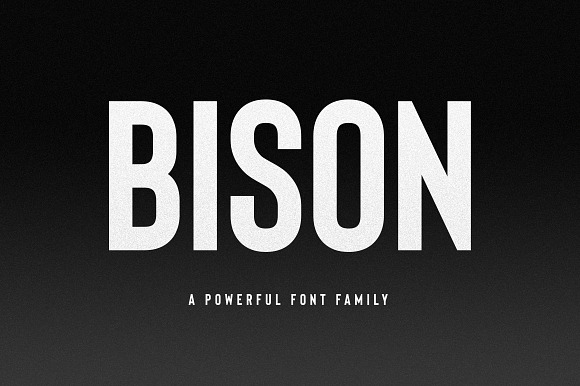
2020 is going to be split right down the middle when it comes to font trends.
Most popular sans serif fonts 2020. As we start to review another year at creative boom weve done a little research to uncover the top 20 typefaces that are proving popular with graphic designers and those we think will be a big hit in 2020. Top 10 fonts that i think will be popular in 2020. From sans serif and slab to serif and display weve thrown in some existing well known fonts as well as brand new contenders all. A continuously updated collection of the 10 most popular humanist sans serif web fonts based on font usage data from typewolf between 2013 and 2020.
For example the version of gill sans on adobe fonts is known as gill sans novai do my best to keep this collection up to date but the availability of certain fonts may change on the service at any time. Based on font usage data on typewolf as well as site submissions designers have been sending me lately these are the 10 fonts that i predict will be hot in 2020. One one side well see the modern sans serif fonts that have dominated the digital space continue to flourish and on the other colorful and expressive character fonts will become more popular with brands and designers alike. This easy to read font is widely used when typing various documents or articles.
Serif fonts with a tiny piece of a nuisance could be perfect for logos print design pairings magazines headlines and even body texts. We analyzed the 40 most popular fonts we offer through our platform honing in on a few major font typesscript decorative headlineas well as the use of serif vs. A continuously updated collection of the 10 most popular sans serif web fonts based on font usage data from typewolf between 2013 and 2020. Some of the font names shown here might be slightly different than the name used on adobe fonts.
We have made a list of best serif fonts that will help you redesign your text or material. One has to choose that font that fits hisher brand perfectly and is easily readable for the users. When you subscribe to my weekly type roundup newsletter ill send you a free pdf with a list of my predictions. Arial is free and probably the most popular font ever that will remain on top in 2020 as well.